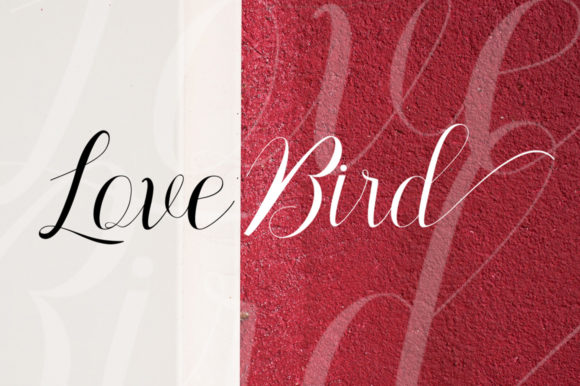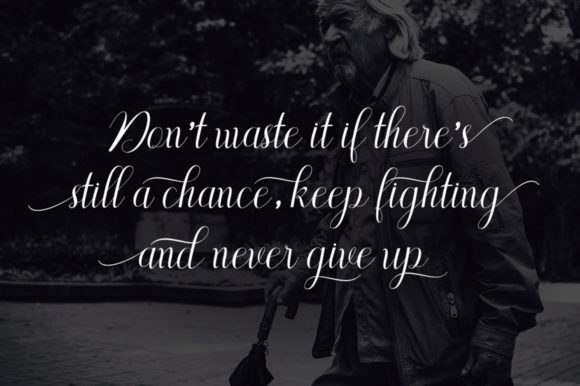
Milsey Font
db-ku.com - Script & Handwritten -- Milsey is a stunning and elegant handwritten font with a sophisticated feel. It will elevate any design idea!